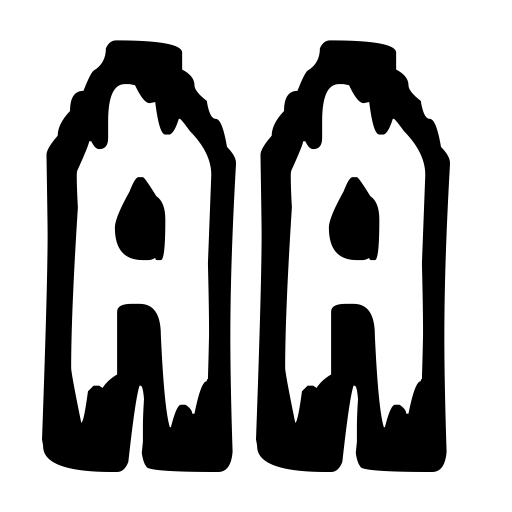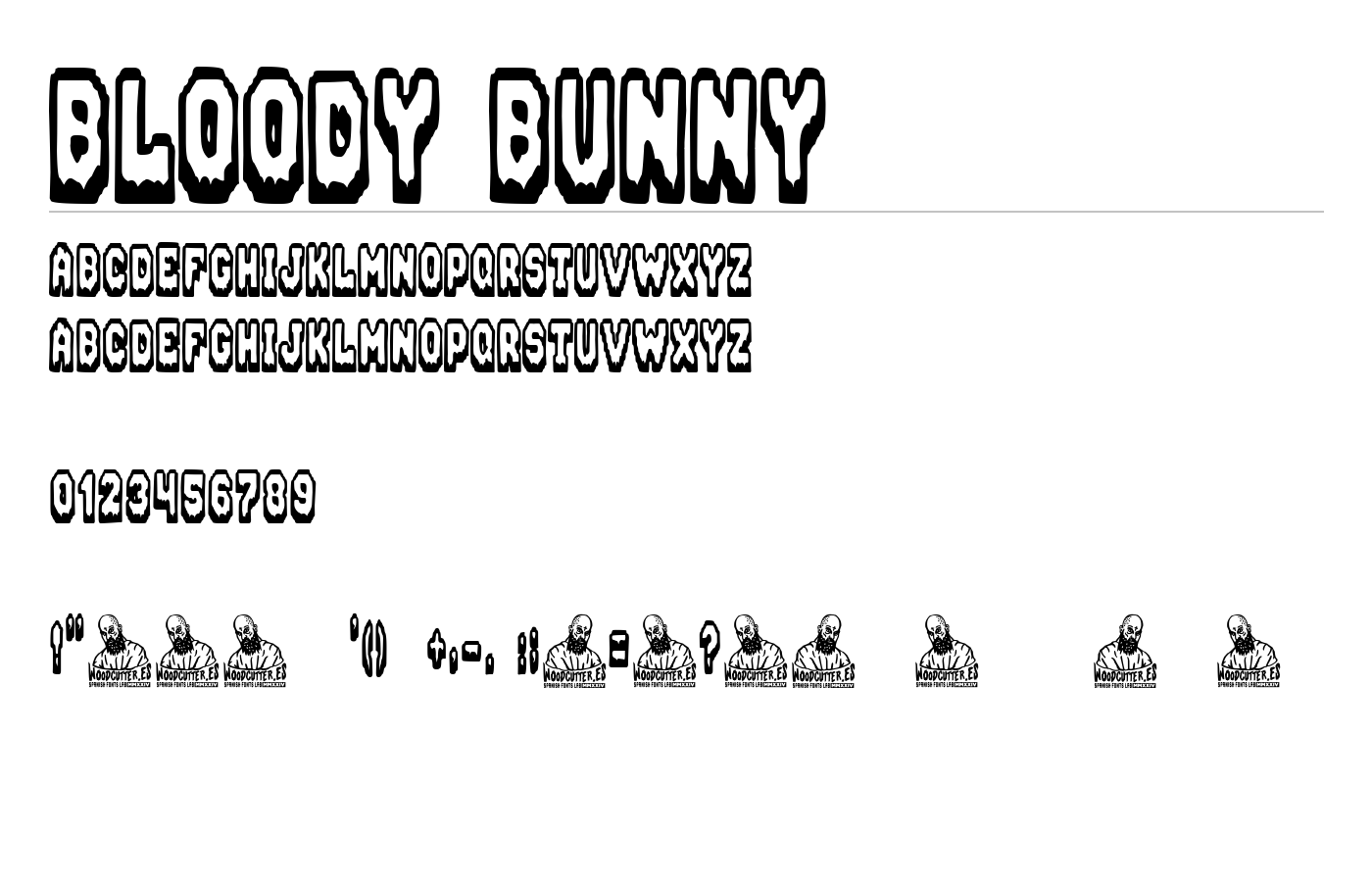
Bloody Bunny is a bold, playful display font with a chunky, irregular outline that resembles dripping or melting shapes, giving it a spooky, horror-themed vibe. It features uppercase letters with a hand-drawn feel and strong, thick strokes perfect for eye-catching titles, Halloween designs, or playful branding with an edgy twist. This font works best for posters, logos, and packaging where a dramatic, fun, and slightly eerie look is desired.
Bloody Bunny Font
About Bloody Bunny Font